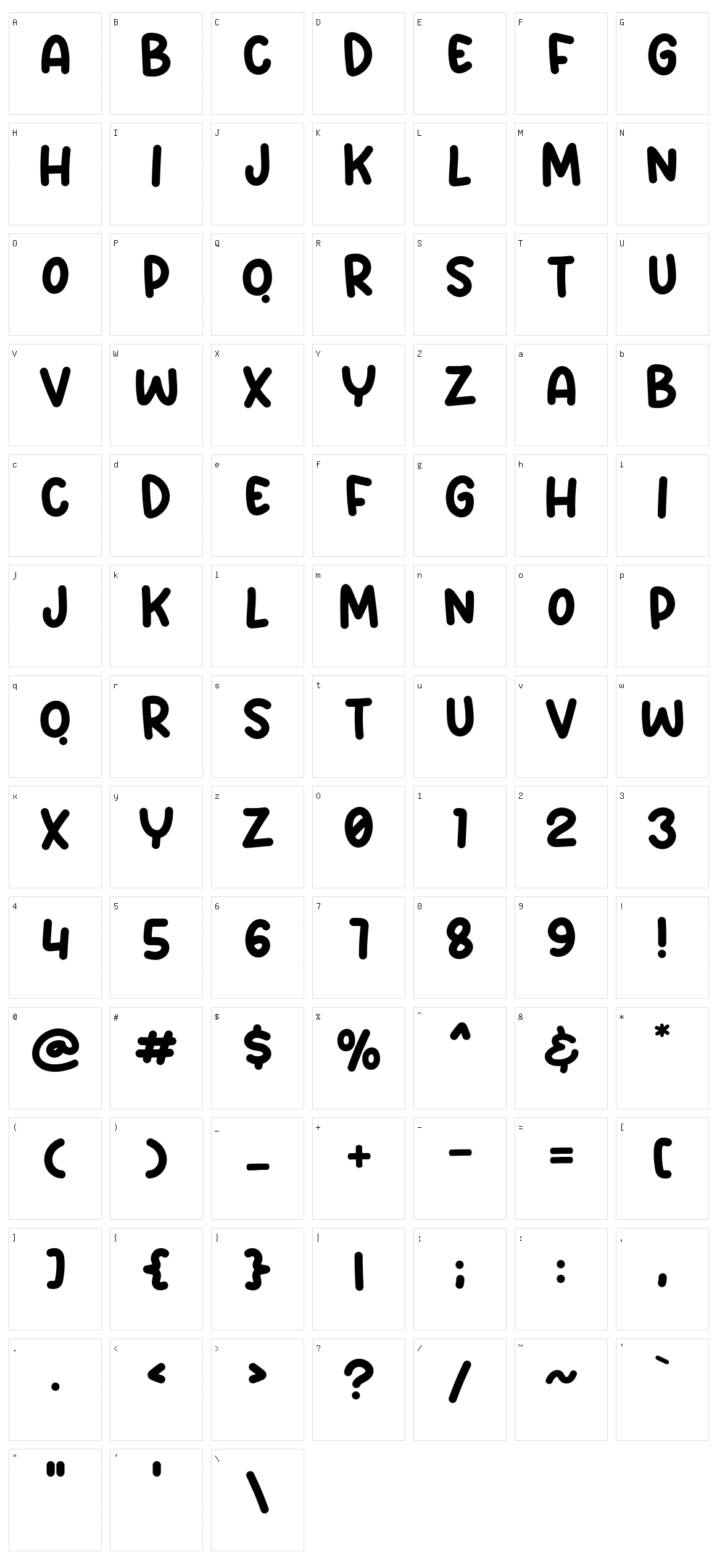
The free font Lets Coffee is carefully designed by Khurasan, showcasing a thoughtful balance of creativity and usability and falls under the Cartoon font style. When you download the ZIP file, it contains only 369.7 KB of font files, making it lightweight and quick to download. Please review the license details below to understand permitted usage and distribution rights. If license information is not available, we recommend using this font for personal projects only or contacting the author directly for commercial usage permissions.